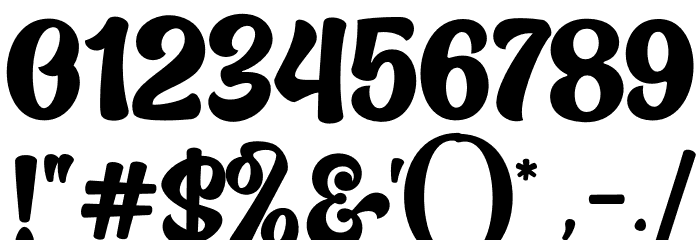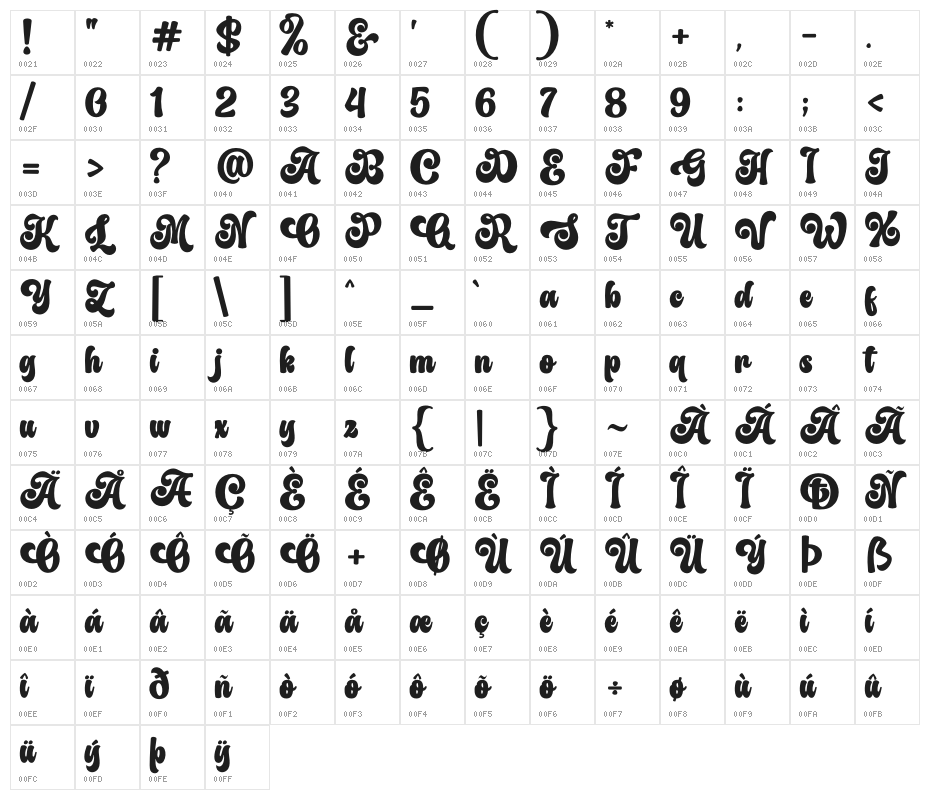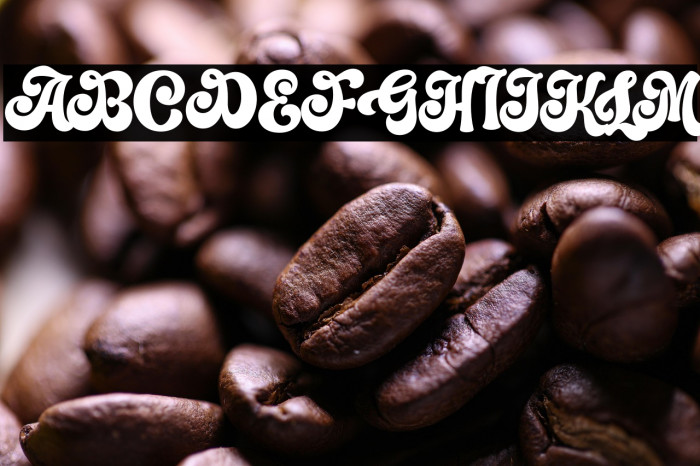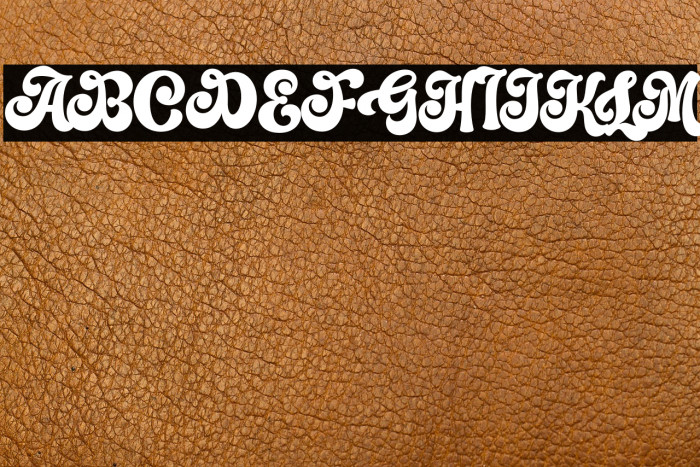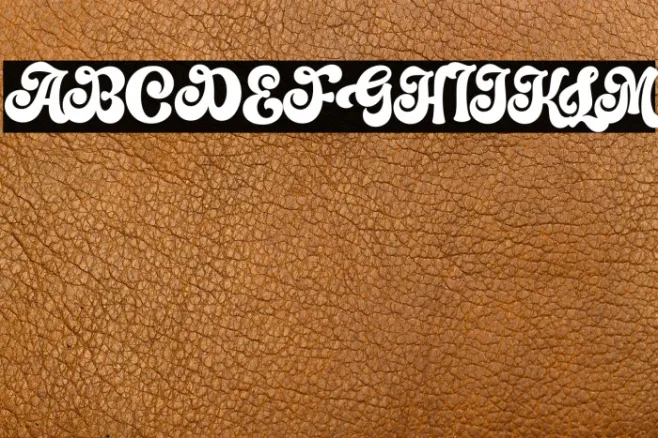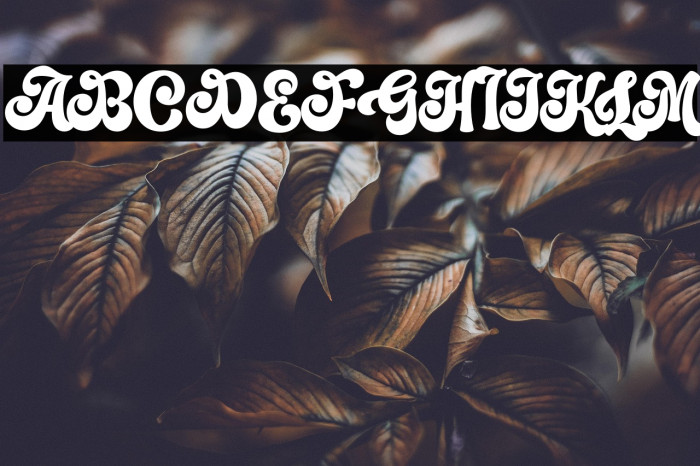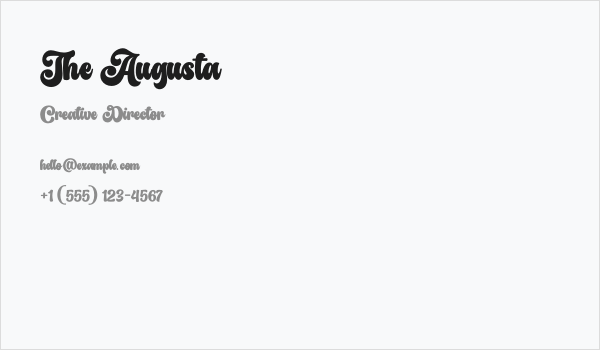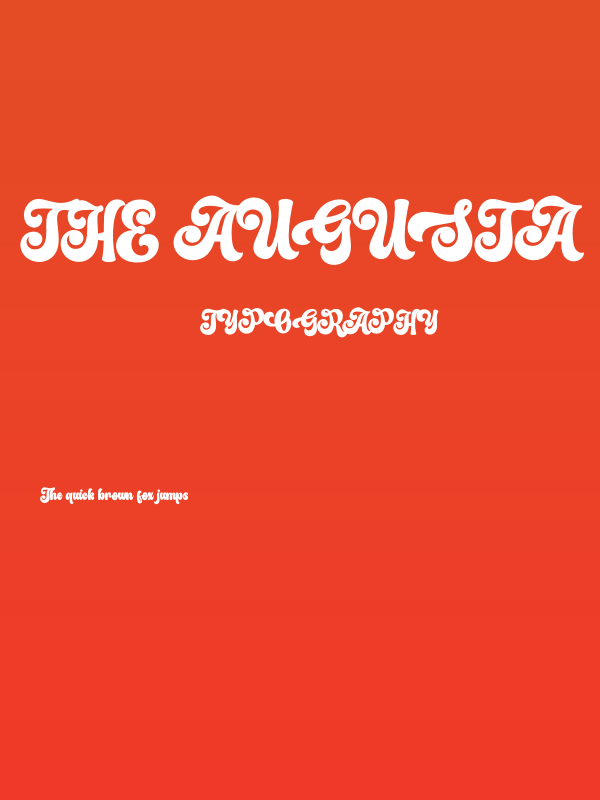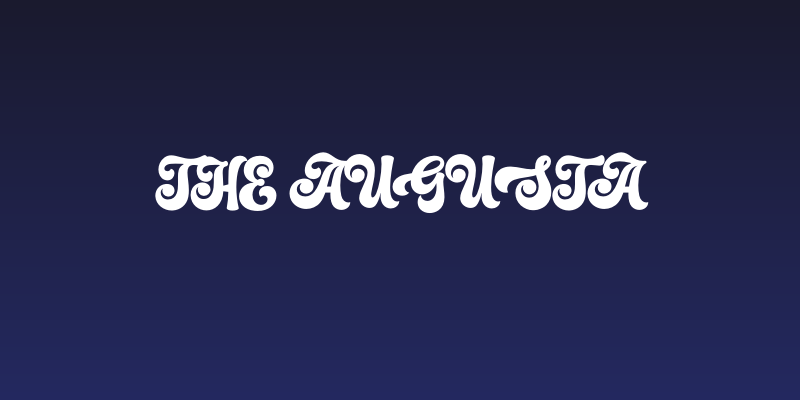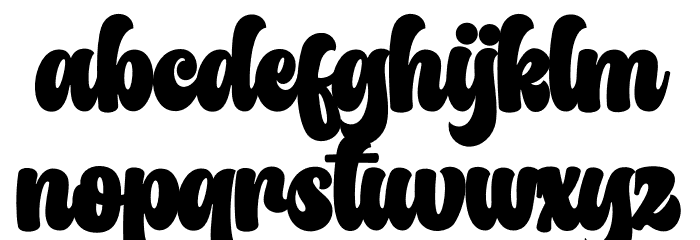
The Augusta Font
The Augusta Description
This font features a bold and playful script style with a strong presence. The characters are rounded and interconnected, giving a sense of fluidity and movement. The uppercase letters are particularly ornate, with swirls and loops that add a decorative flair. The lowercase letters maintain a consistent thickness, contributing to the font's cohesive appearance. Numbers and special characters are designed with the same boldness and playful curves, ensuring uniformity across all glyphs. The overall design is eye-catching and suitable for projects that require a touch of whimsy and creativity.
| Proposed Projects | Ideal for branding, invitations, posters, and any design project that seeks a lively and engaging aesthetic. |